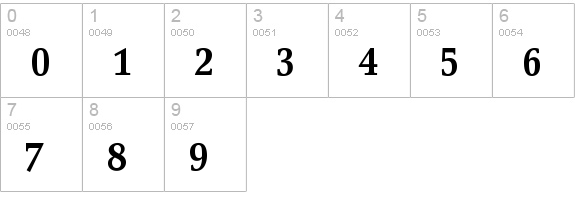
MagnaEF-Bold Font Details
MagnaEF-Bold is a strong, high-contrast variant in the MagnaEF typeface family \xE2\x80\x94 well suited to headlines, attention-grabbing titles, and strong calls-to-action.
MagnaEF-Bold is a remarkable font that effortlessly captivates attention with its bold and powerful presence. Designed with meticulous attention to detail, this font showcases a perfect balance between elegance and modernity. The strong and confident letterforms exude a sense of authority and strength, making it an ideal choice for headings, titles, and impactful designs. With its generous proportions and well-defined curves, MagnaEF-Bold stands out in any context, whether it is used for print or digital projects. Its versatility allows it to adapt seamlessly to various design styles, from sleek and contemporary to more traditional and sophisticated. One of the most appealing aspects of MagnaEF-Bold is its availability as a free download at FontsMarket.com. This means that designers, creatives, and typography enthusiasts can access this remarkable font without any cost or hassle. The ability to freely acquire such a high-quality font is a testament to the inclusive nature of the design community, allowing everyone to explore their creativity without any barriers. Whether you are working on a branding project, editorial layout, or a web design, MagnaEF-Bold will undoubtedly make a lasting impression. Its bold and impactful nature, combined with its limitless availability, makes it an essential addition to any designer's toolkit. Download MagnaEF-Bold today from FontsMarket.com and unlock a world of possibilities for your next design endeavor.